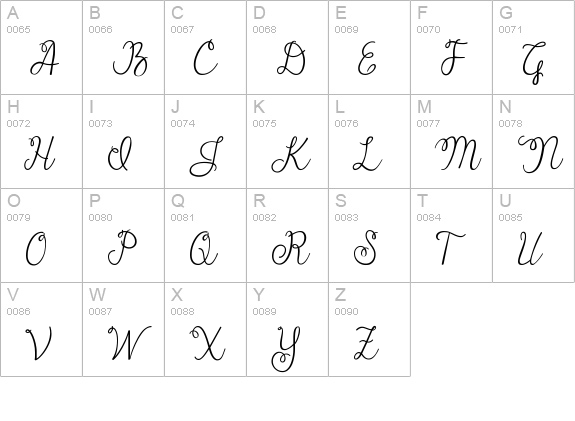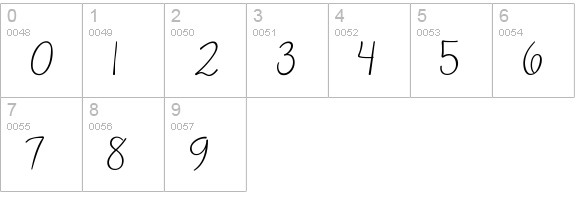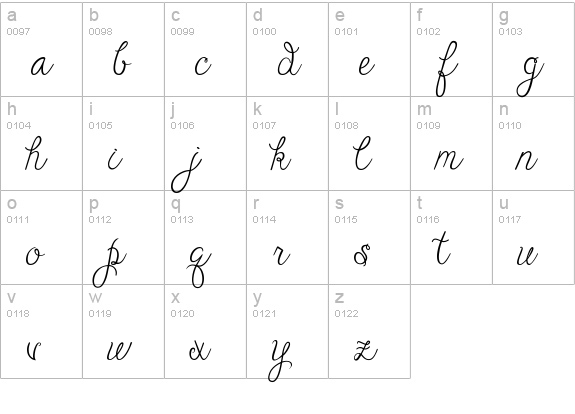
Janda Cheerful Script Font Details
Janda Cheerful Script font is a delightful and whimsical typeface that exudes joy and positivity. Its playful and energetic letterforms are perfect for adding a cheerful touch to any design project. With its unique and hand-drawn style, this font is sure to bring a smile to anyone's face. The Janda Cheerful Script font is versatile and can be used in a variety of creative applications, including logos, invitations, greeting cards, posters, and more. Its friendly and welcoming appearance makes it a great choice for designs aimed at children or those that want to evoke a sense of happiness and lightheartedness. What makes Janda Cheerful Script font even more amazing is that it is available for free! That's right, you can download this incredible font without spending a dime. It can be found at FontsMarket.com, a trusted website for all your font needs. Whether you're a professional designer or a hobbyist, this free font is a valuable addition to your collection. So why wait? Spread some cheer and download Janda Cheerful Script font today. Let its whimsical charm and vibrant personality bring a touch of happiness to your next design project.